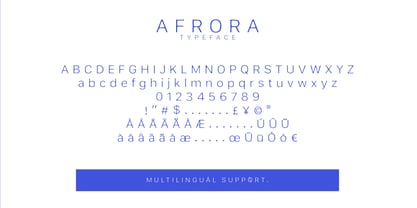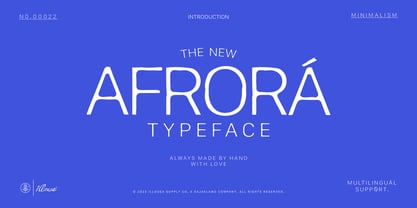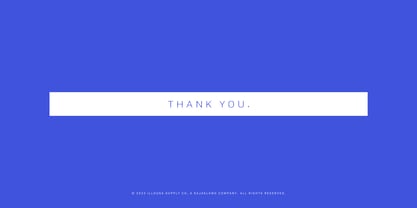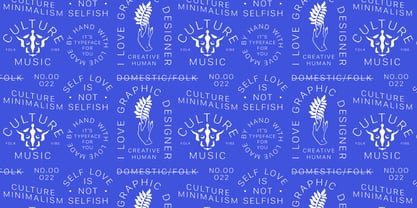
SCC Afrora
von Illousa Supply Co
Die Schriftfamilie SCC Afrora wurde von Ilham Afrora entworfen und von Illousa Supply Co veröffentlicht. SCC Afrora enthält 1 Stile. Mehr über diese Familie
Afrora: The Minimalist Hand-Drawn Typeface Afrora is a contemporary sans-serif typeface that celebrates the beauty of simplicity combined with an organic, human touch. Developed by Illousa Supply Co., this font moves away from the rigid perfection of digital typography, offering an "Always Made by Hand with Love" aesthetic that feels warm, approachable, and high-end. Designed with a clean, minimalist anatomy, Afrora features subtle hand-drawn irregularities that give it a unique personality. It is the perfect choice for designers who want to maintain a professional, modern look while adding a layer of artisanal charm to their work. Key Features: Organic Minimalism: A clean sans-serif structure with soft, hand-drawn edges that evoke a sense of calm and authenticity. Multilingual Support: Ready for global reach, Afrora includes comprehensive language support to ensure your message is clear in various regions. Versatile Weight: Its balanced proportions make it highly legible, performing beautifully in both large display headlines and smaller secondary text. Timeless Aesthetic: Whether you are designing for a luxury brand or a craft boutique, Afrora fits seamlessly into any modern visual identity. Perfect For: Modern Branding: Ideal for logos that require a clean, sophisticated, yet friendly appearance. Editorial Design: Beautiful for lifestyle magazines, blog headers, and book covers. Social Media: Create engaging quotes and aesthetic posts for Instagram and Pinterest. Packaging: Enhances the look of organic products, skincare, and minimalist apparel labels.
Designer: Ilham Afrora
Foundry: Illousa Supply Co